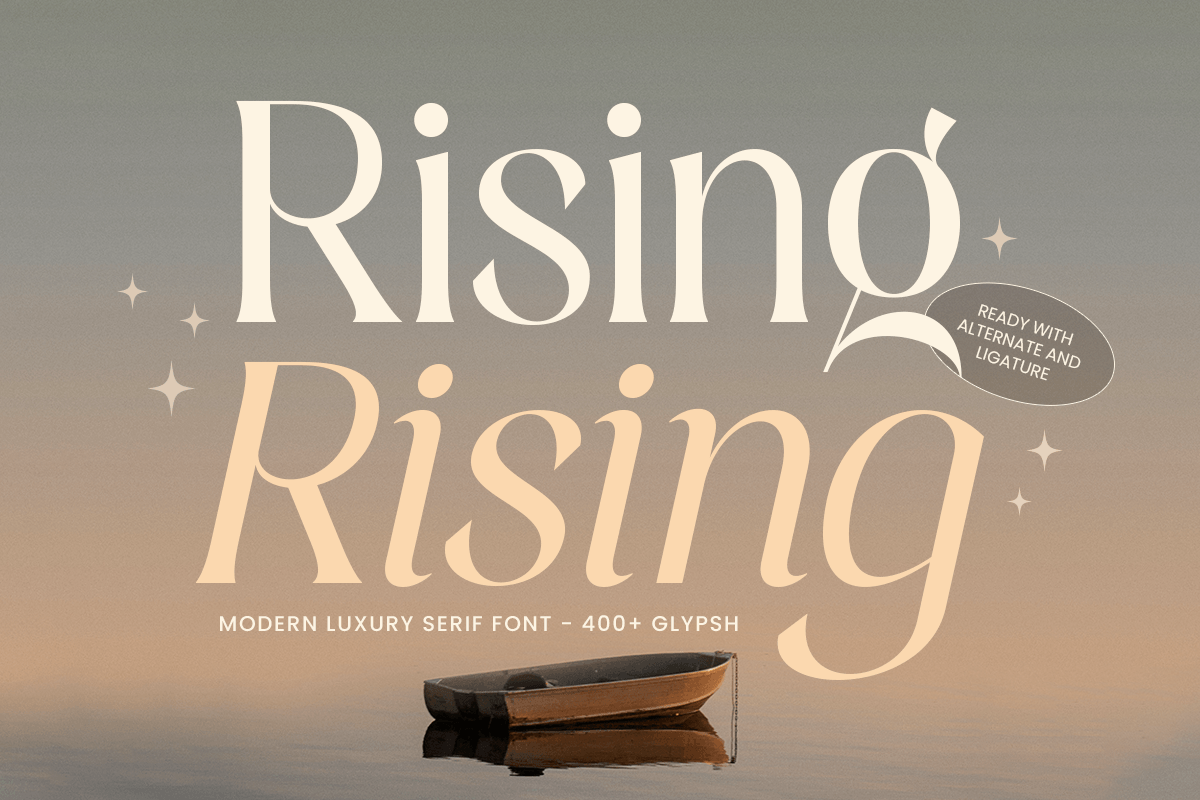
Rising
- Modern Luxury Serif Font
Rising - Modern Luxury Serif Font
Rising is a modern luxury serif font crafted to deliver refined elegance with a clean, contemporary edge. With polished serif details, balanced proportions, and a confident high-end tone, this typeface creates a premium visual identity that feels timeless, stylish, and unmistakably sophisticated.
Designed for luxury-led typography, Rising works seamlessly across logos, wordmarks, fashion branding, magazine headlines, website headers, packaging, labels, invitations, and social media campaigns. Its modern structure keeps layouts sharp and readable, while the luxury serif character adds prestige and exclusivity to every design.
Whether you’re building a fashion label, beauty brand, premium product packaging, or an upscale editorial concept, Rising provides a modern serif foundation that makes your typography feel elegant, professional, and instantly recognizable.
Inspiration Behind Rising
Rising is inspired by contemporary luxury branding and editorial typography—where refined serif structure and modern clarity define premium communication. The design focuses on clean elegance, balanced rhythm, and high-end presence to support fashion-forward identities, upscale packaging, and sophisticated marketing visuals.
Rising Font Features:
• Modern luxury serif letterforms with refined elegance
• Perfect for premium branding, high-end logos, and editorial headlines
• Clean structure for stylish layouts and strong readability
• Available with 2 styles: Regular and Italic version inside
• Luxury logos, wordmarks, and premium brand identity systems
• Fashion, beauty, skincare, fragrance, jewelry, and boutique branding
• Editorial layouts, magazine covers, lookbooks, and headlines
• Premium packaging, labels, invitations, and elegant stationery
• Social media campaigns, websites, ads, and marketing assets